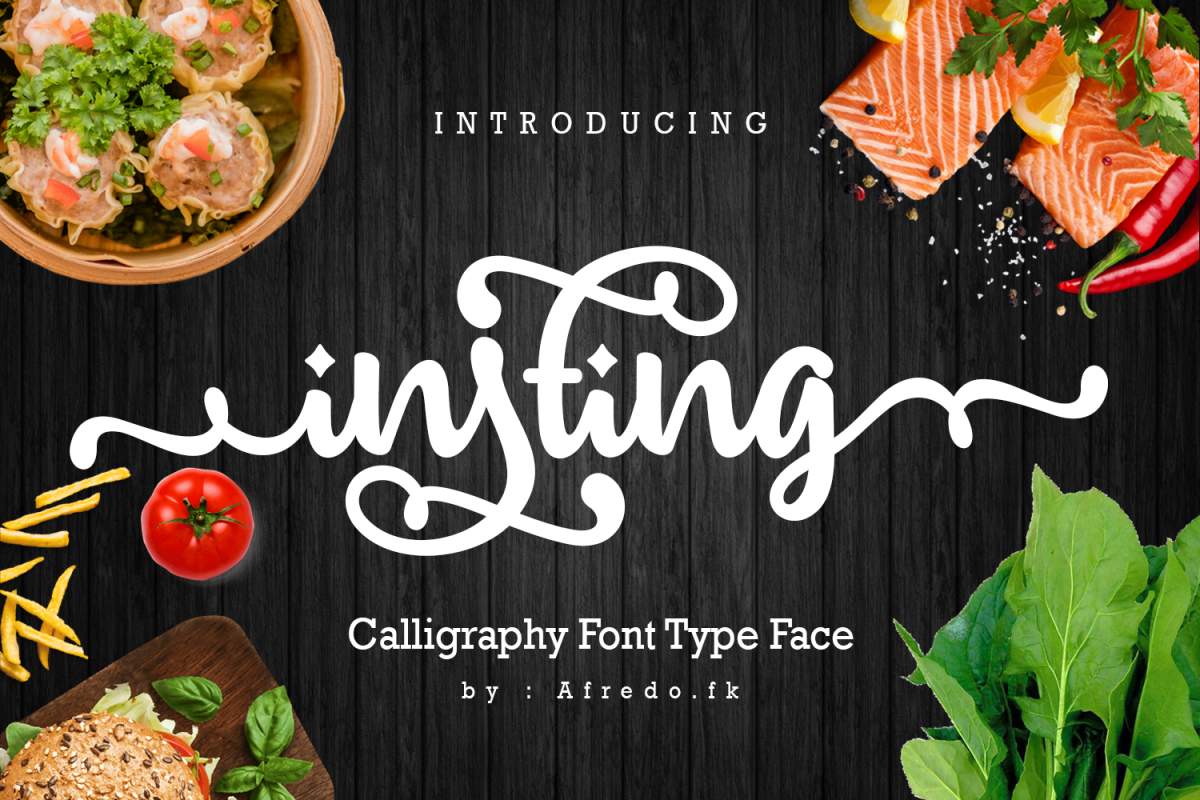
Insting
Insting a new fresh & modern script with a handmade calligraphy style, decorative characters and a dancing baseline! So beautiful on invitation like greeting cards, branding materials, business cards, quotes, posters, logo and more!!